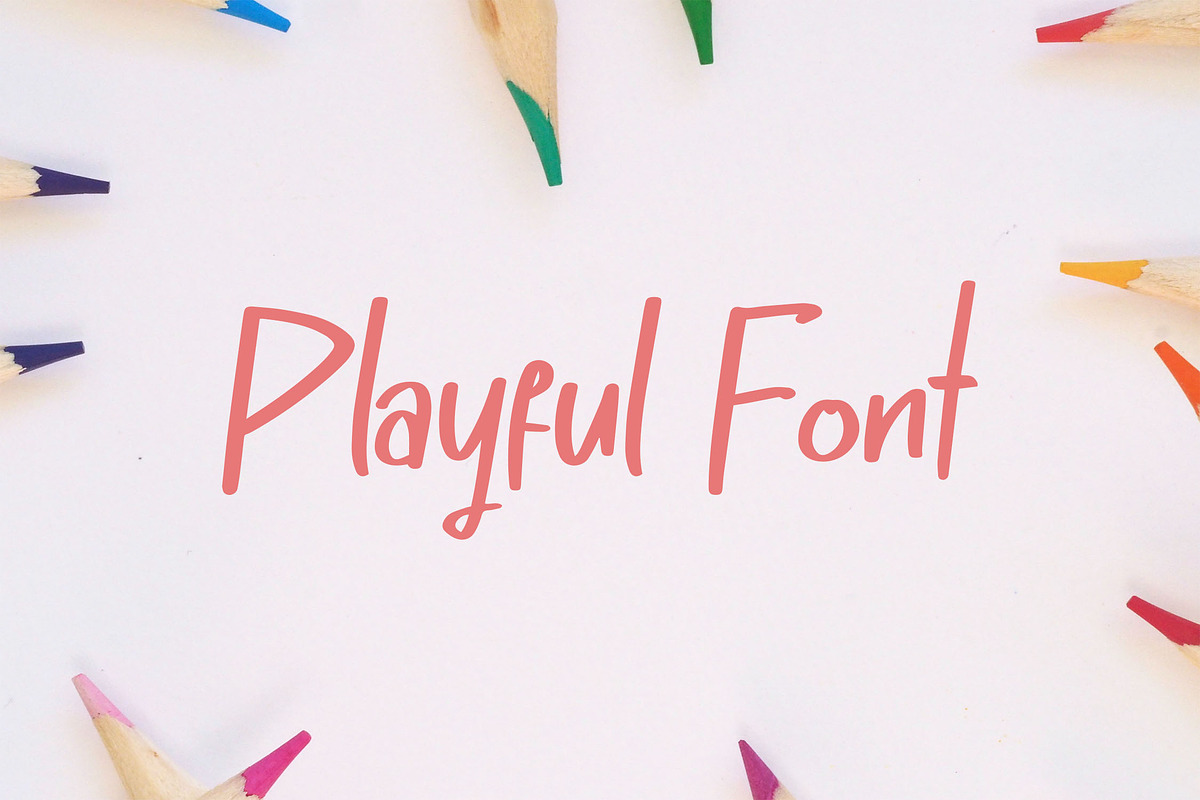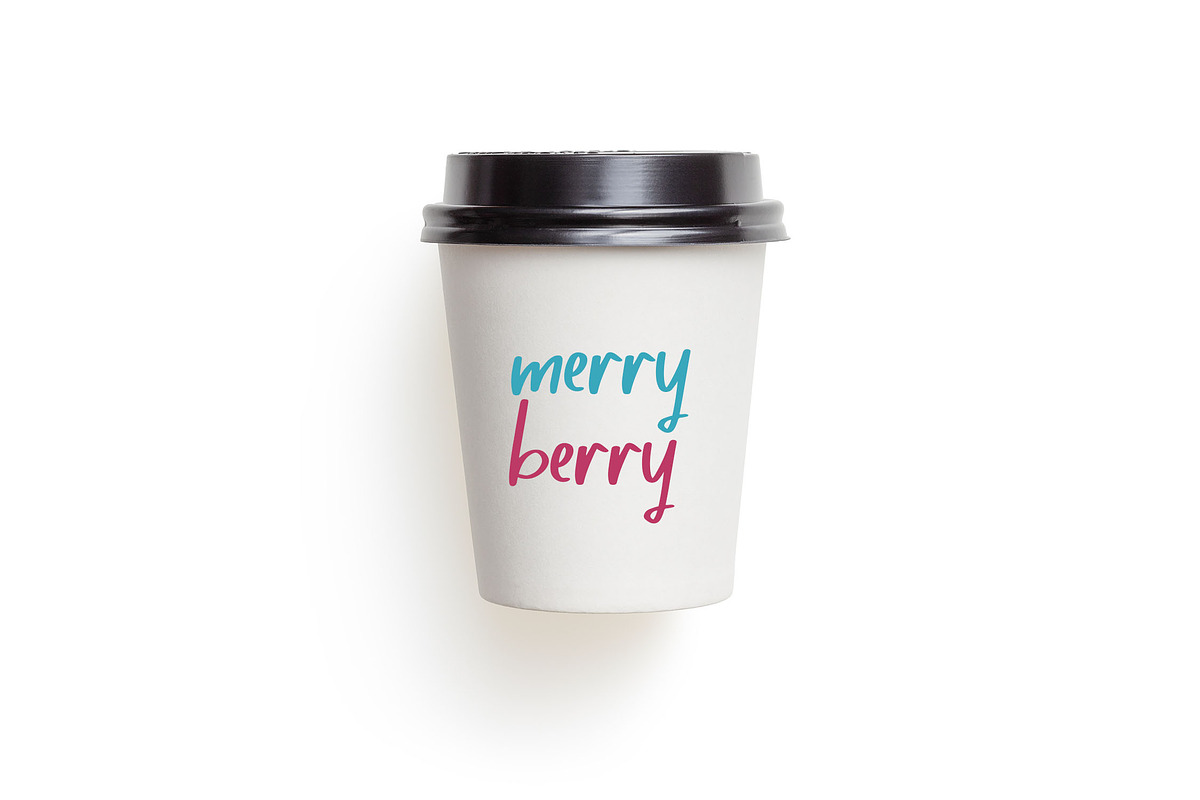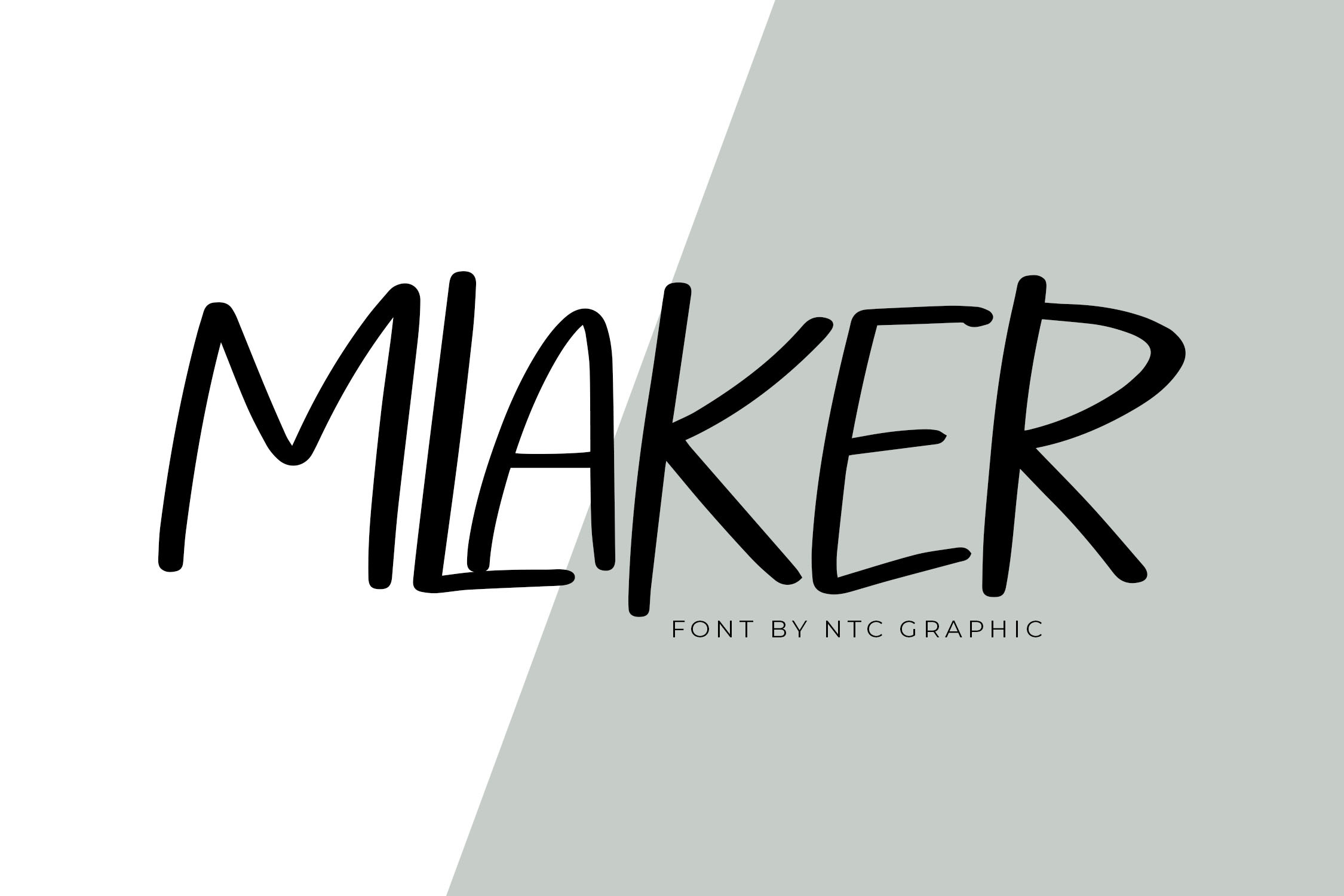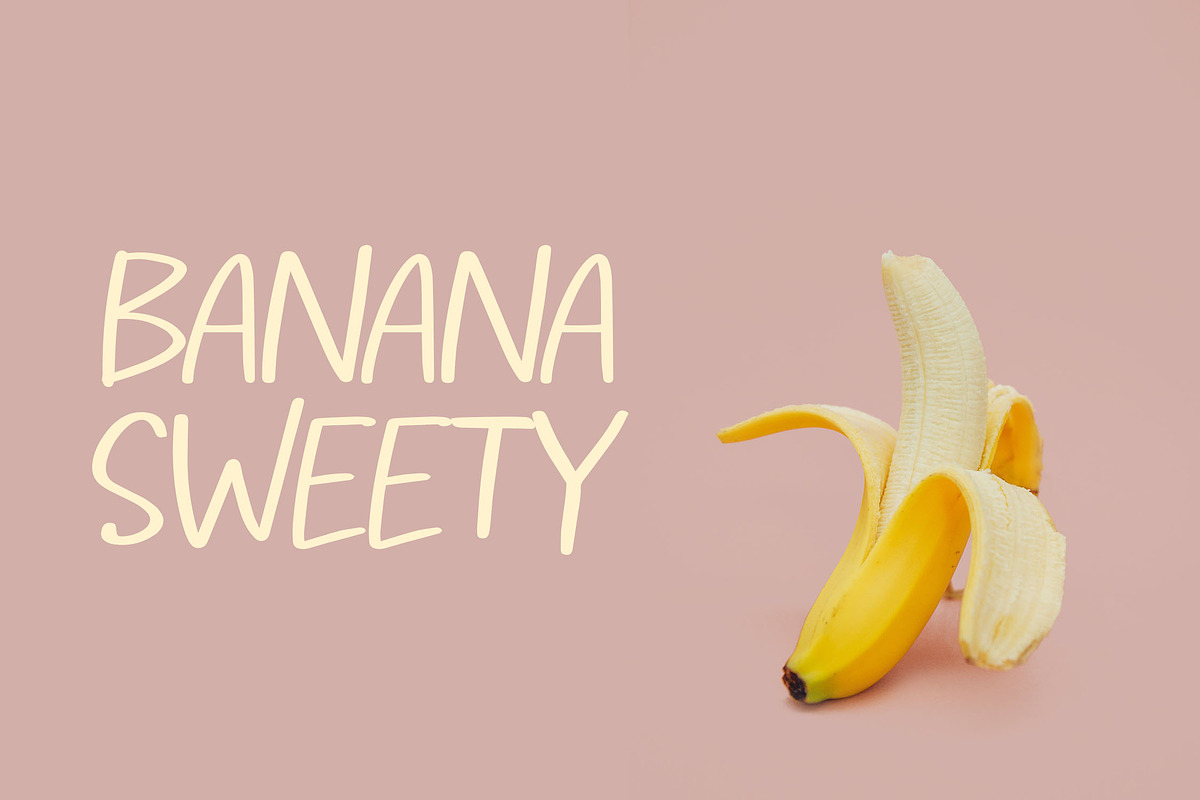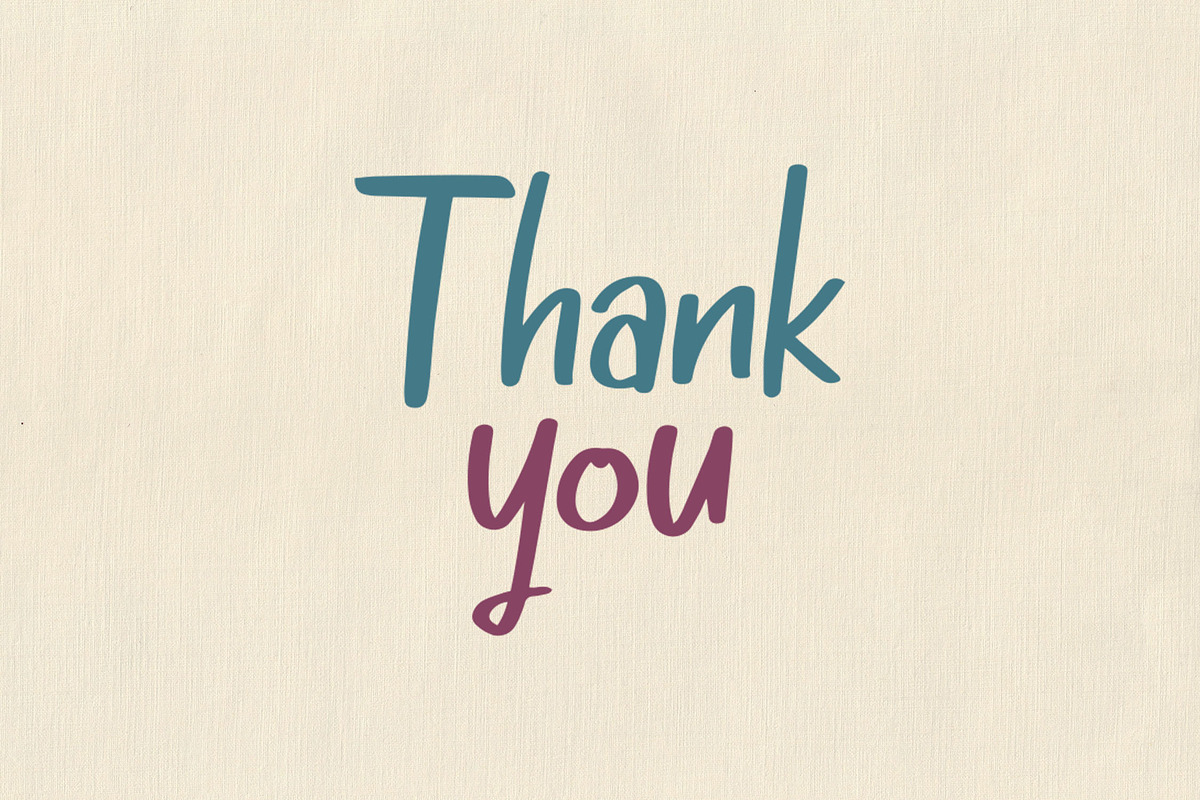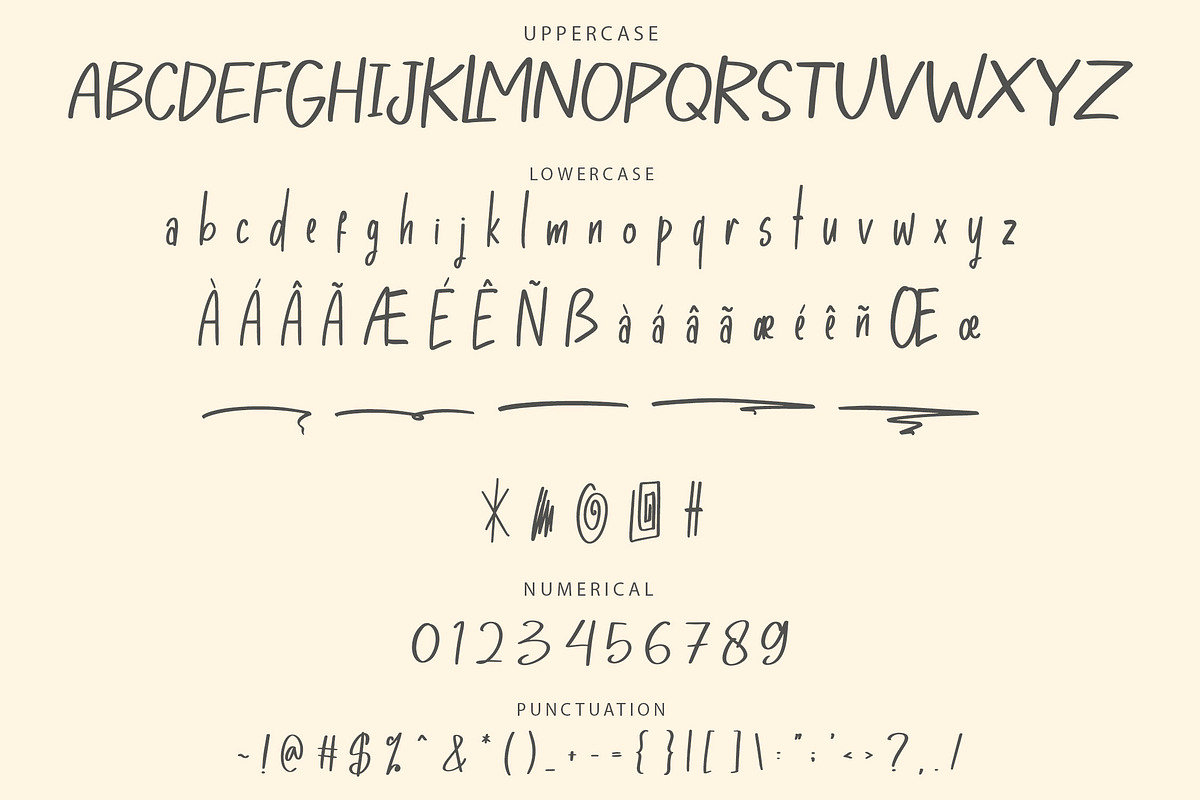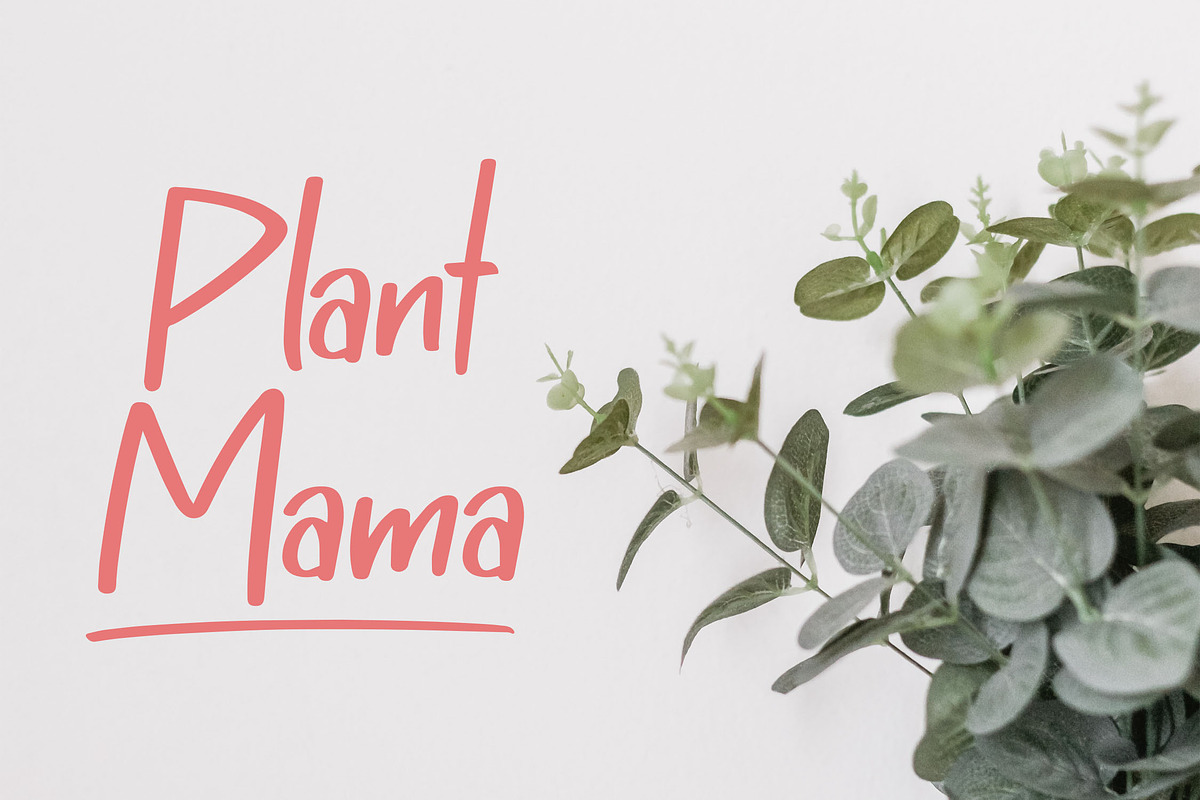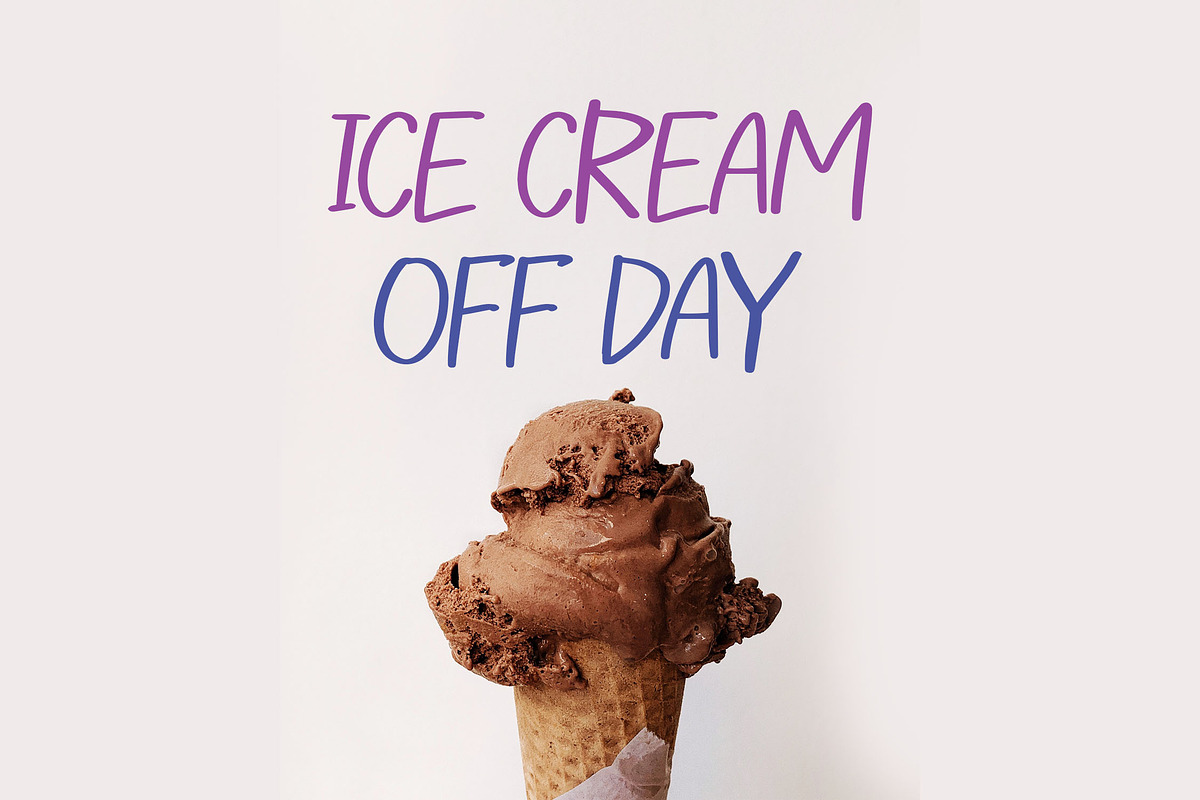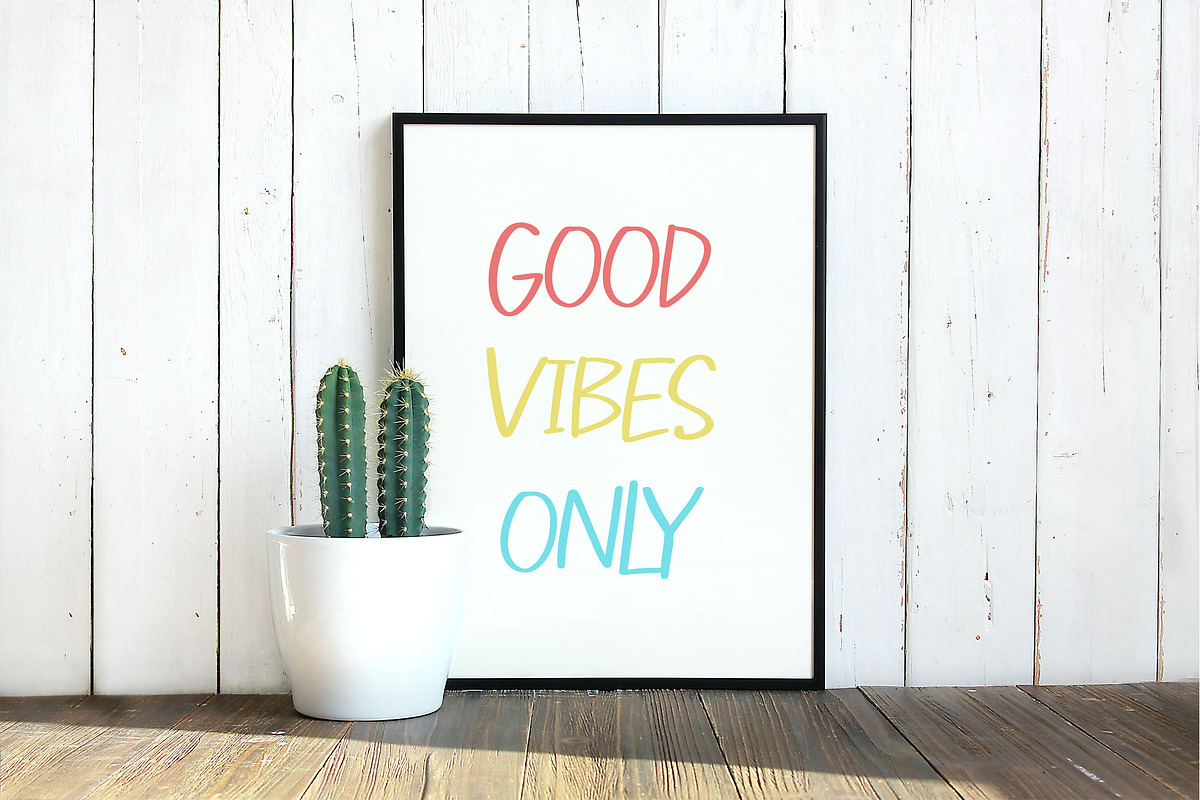
MLAKER Playful Brush Font
MLAKER is a charming handwriting brush font that brings a playful touch to your designs. With its unique character shapes, MLAKER enhances the visual appeal of any graphic project, making it an ideal choice for logos, invitations, posters, and more.
- Ligatures: Enjoy seamless connections between characters.
- Stylistic Alternates: Customize your text with alternative letterforms.
- Swashes: Add decorative flourishes to your typography.
- Multilingual Support: Perfect for a variety of languages and character sets.